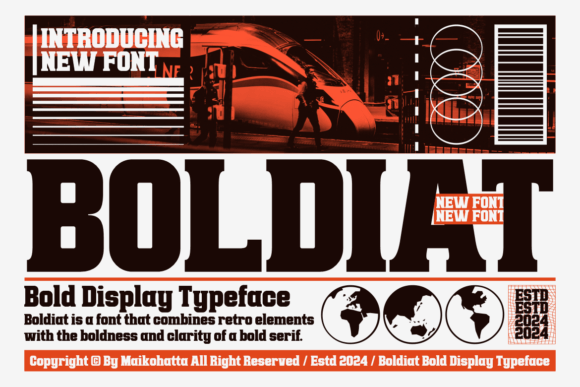
Introducing Boldiat: The Ultimate Serif Display Typeface for Creative Projects
Have you ever been in the middle of a design project, pouring your heart and soul into every detail, only to get stuck on one thing: finding the perfect font? I certainly have. Recently, I was working on a client project that required a classic, elegant look, and after scouring the internet for hours, I stumbled upon a gem that I just had to share with fellow designers and creative hobbyists – **Boldiat**, a stunning bold display typeface with serifs.
What Makes Boldiat Special?
Boldiat features a series of small or decorative projections called serifs at the ends of its characters. These serifs provide a more formal, classic, and easy-to-read appearance to printed text, making it perfect for formal documents, books, and print publications where legibility in small text sizes is crucial.
- ✅ Classic and Elegant: The serif design gives Boldiat a timeless look that’s hard to resist.
- ✅ Highly Legible: Even at small text sizes, Boldiat remains clear and easy to read.
- ✅ Versatile: Whether you’re designing a book cover, a business card, or a magazine, Boldiat fits right in.
An Honest Review of Boldiat
What I Love About Boldiat ✨
- ✨ Unique yet Familiar: Boldiat stands out with its distinctive serifs, yet feels familiar and comfortable to read.
- ✨ OpenType Features: It comes with a range of OpenType features, including glyphs and stylistic alternates, allowing for a high degree of customization.
While Boldiat is an excellent choice for many projects, there are a few things to keep in mind:
- ⚠️ Limited Use in Digital Media: While serifs are great for print, they can sometimes make text harder to read on screens, especially at small sizes.
- ⚠️ Requires Attention to Kerning: As with any font, especially serifs, paying attention to kerning is crucial to ensure your text looks professional.
The Backstory of Boldiat
Boldiat was inspired by the classic serif fonts of the past, reimagined for the modern designer. The creator aimed to produce a font that was not only beautiful but also highly functional across various media. The result is a versatile typeface that brings a touch of elegance to any project.
Q: Is Boldiat suitable for body text?
A: While Boldiat is primarily designed as a display typeface, its legibility makes it suitable for short paragraphs of body text, especially at larger sizes.
Q: Does Boldiat support non-English languages?
A: Boldiat includes a range of characters and diacritics to support multiple languages. However, it’s always best to check the specific language support details.